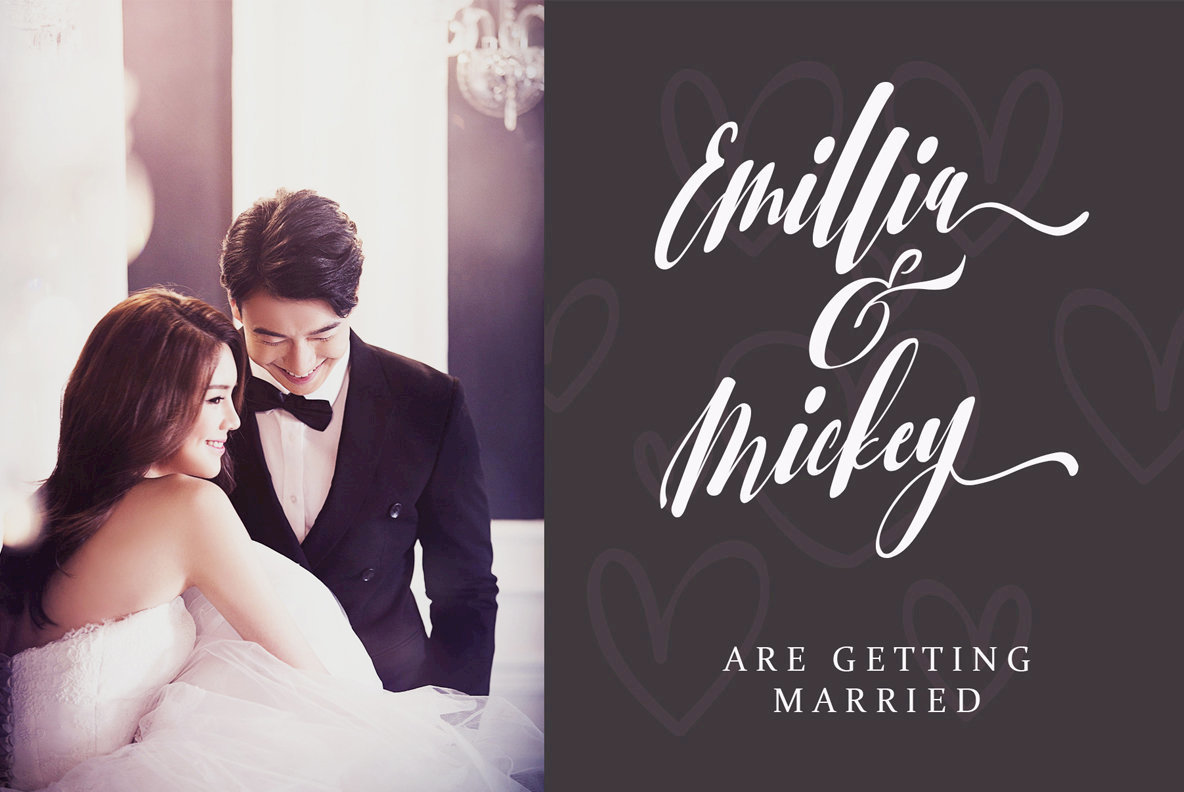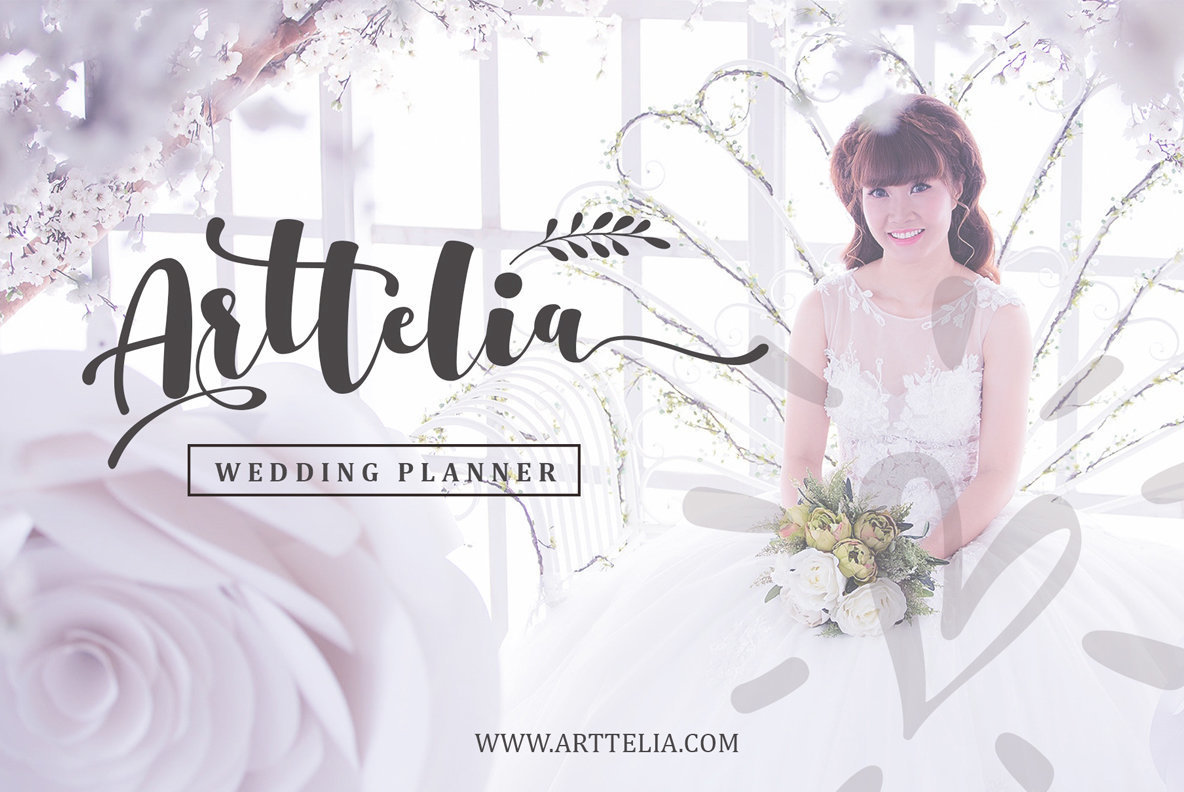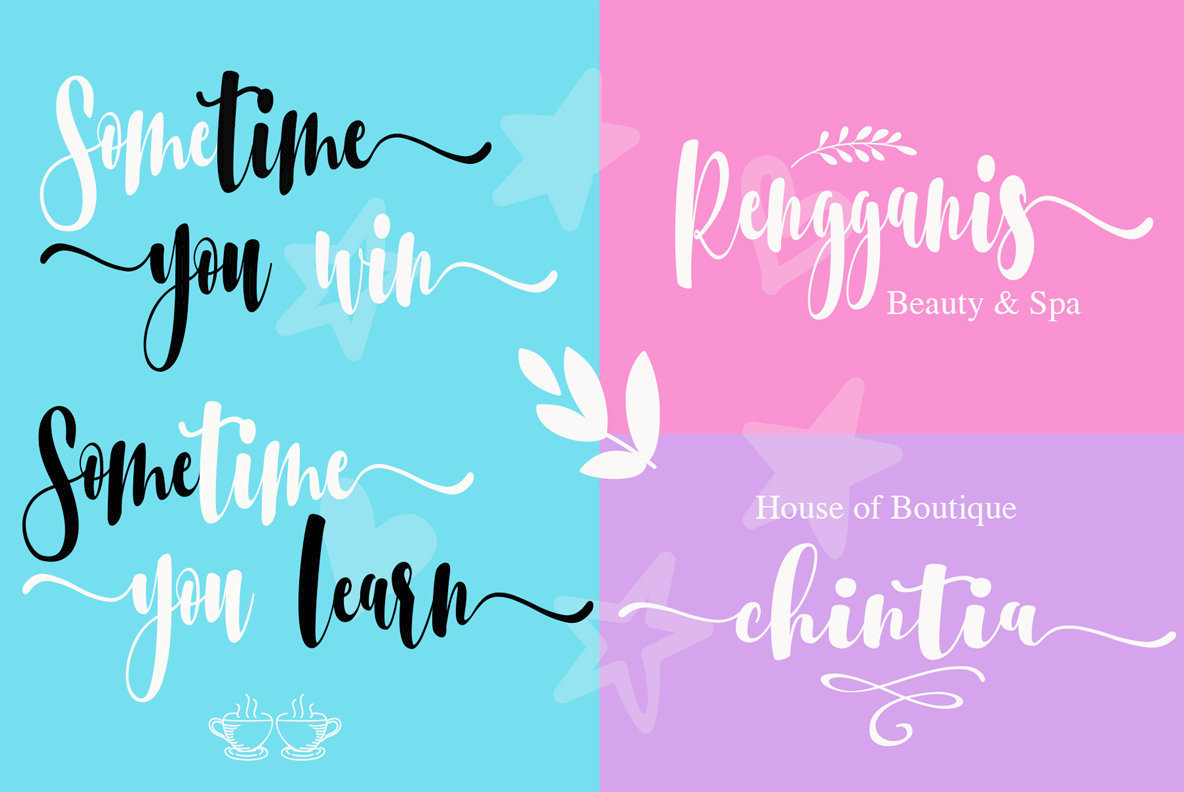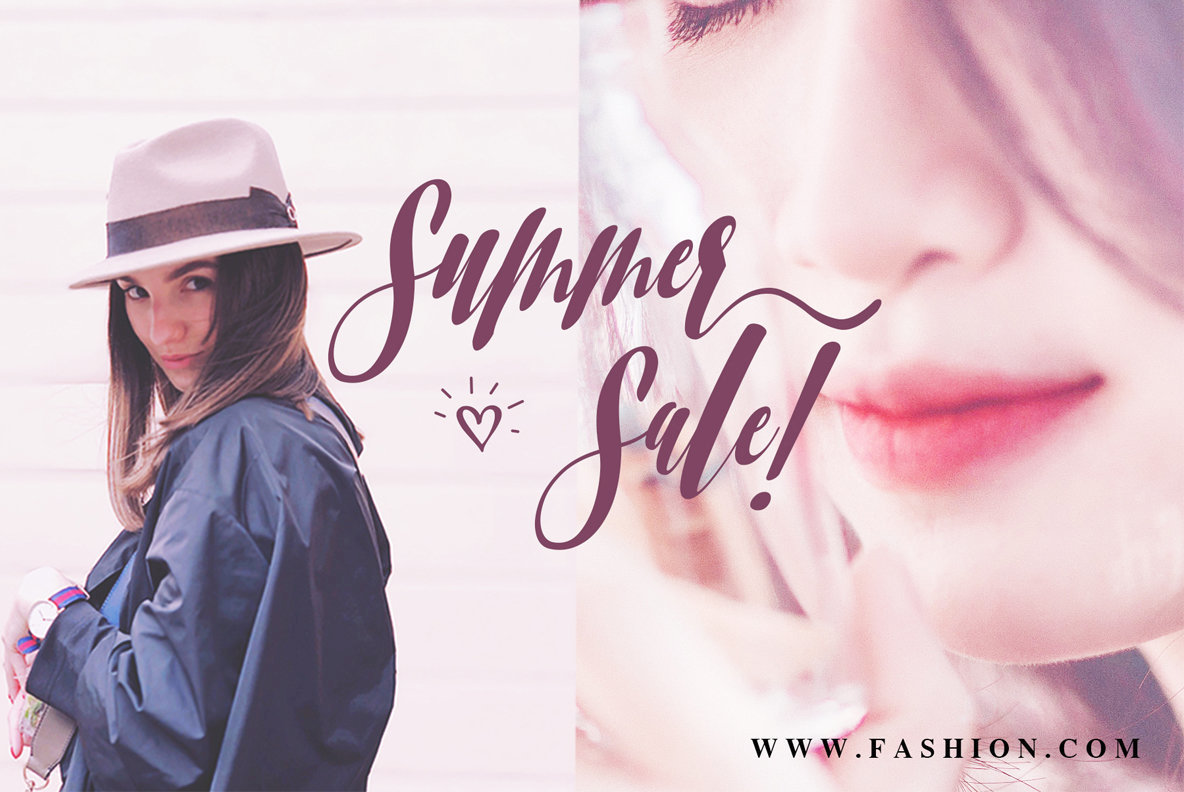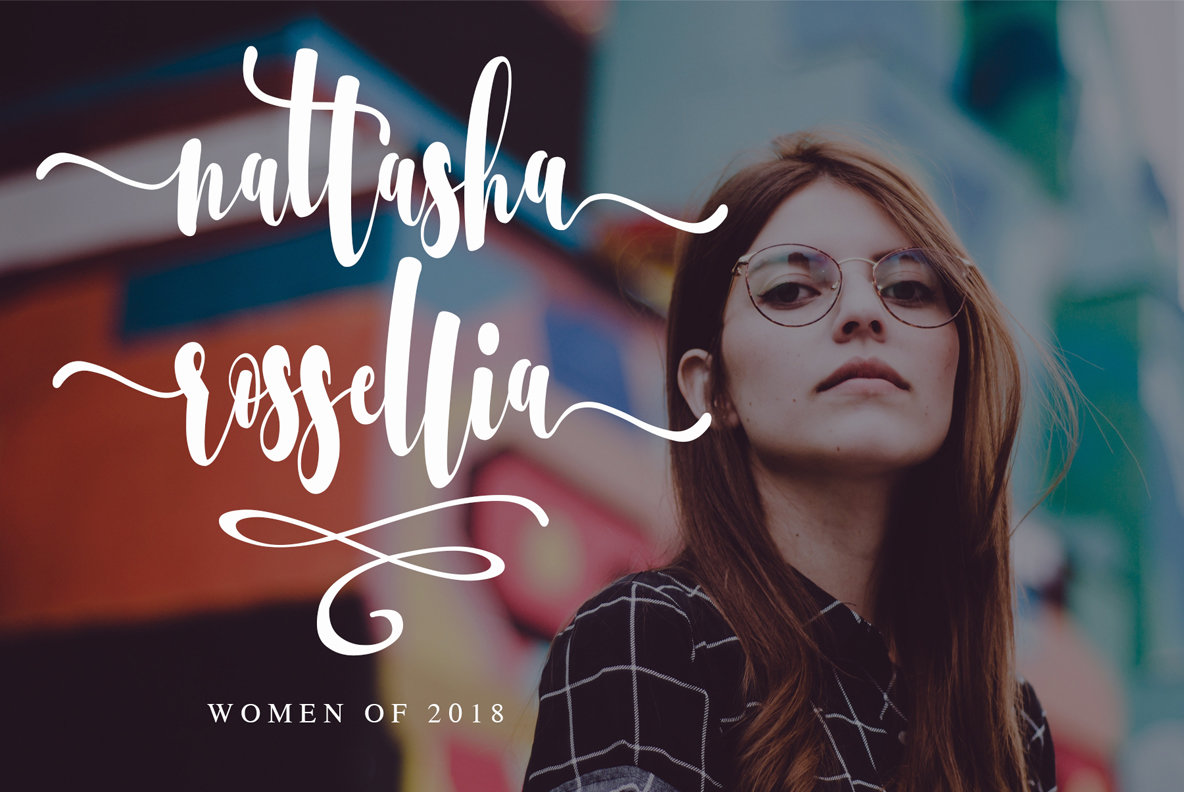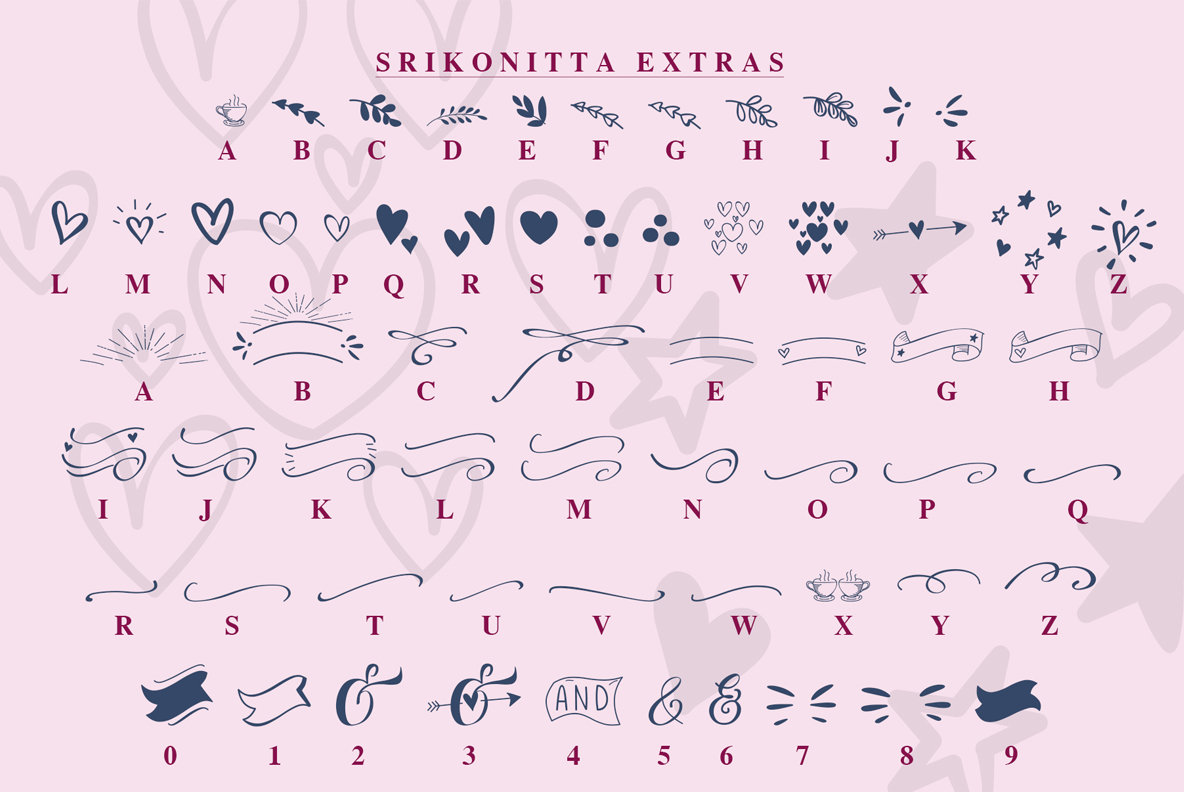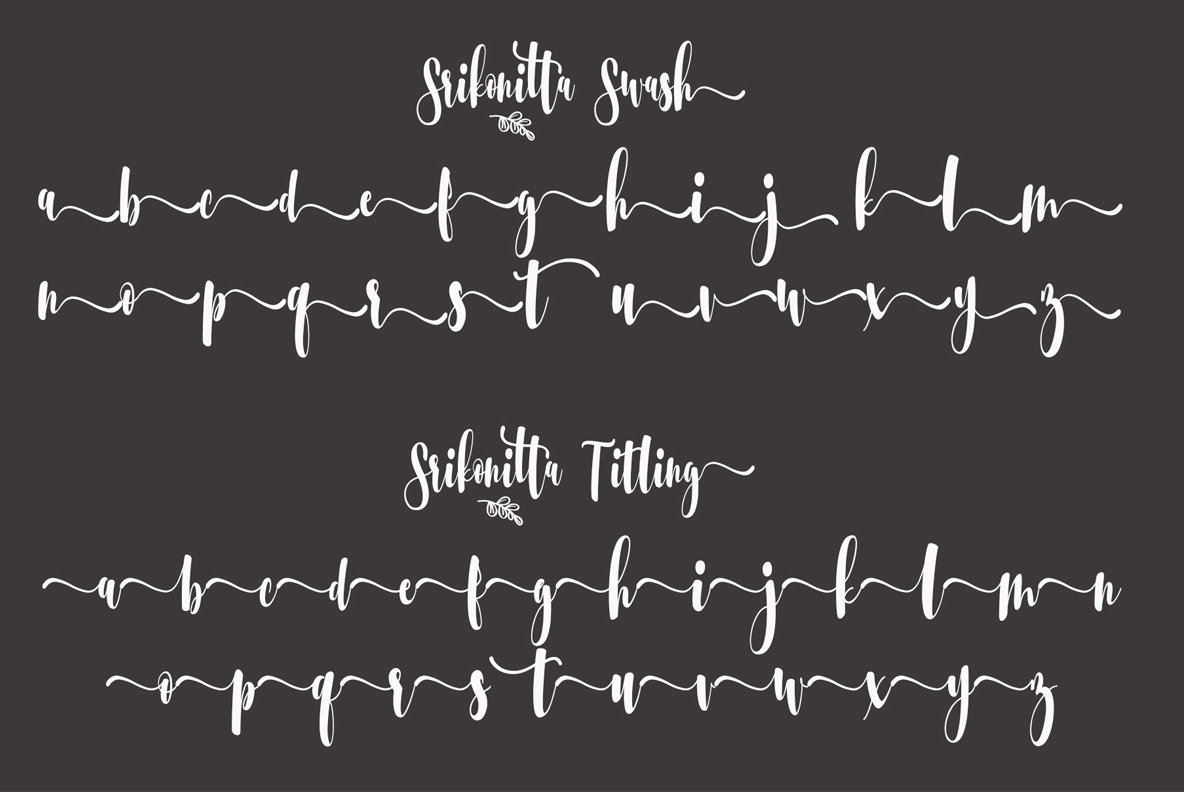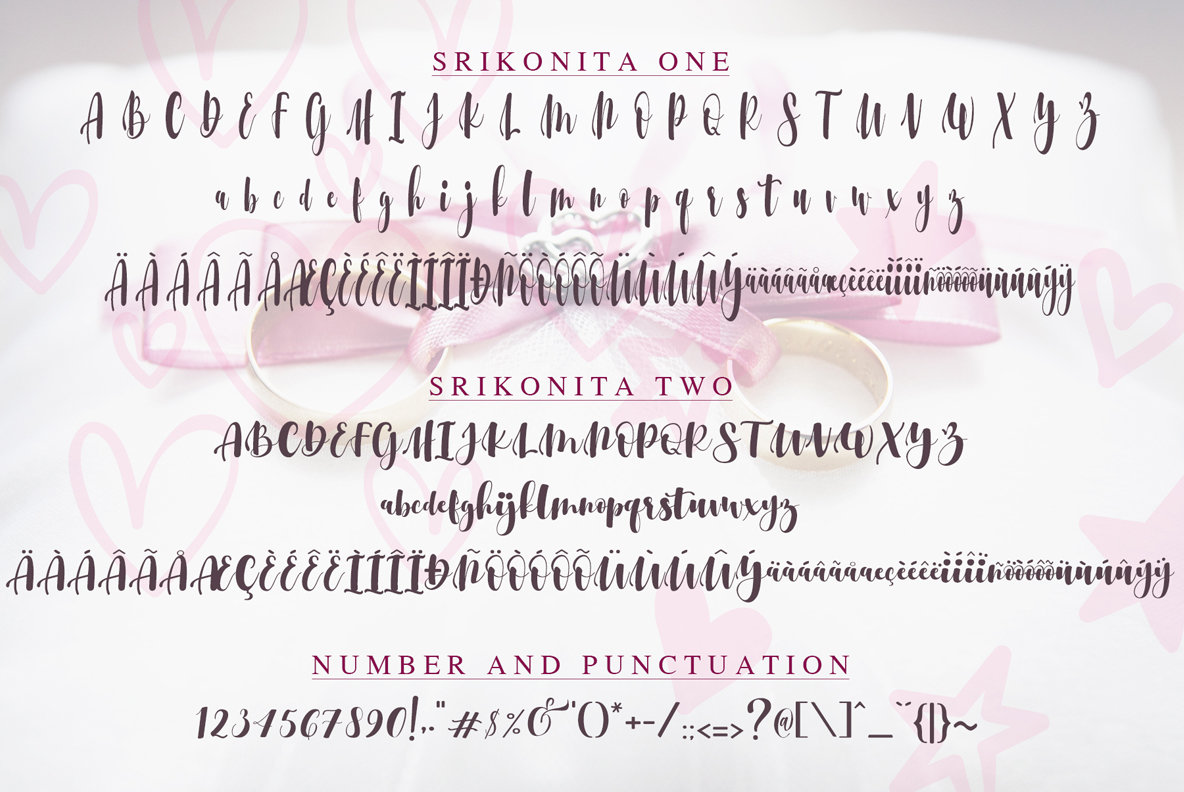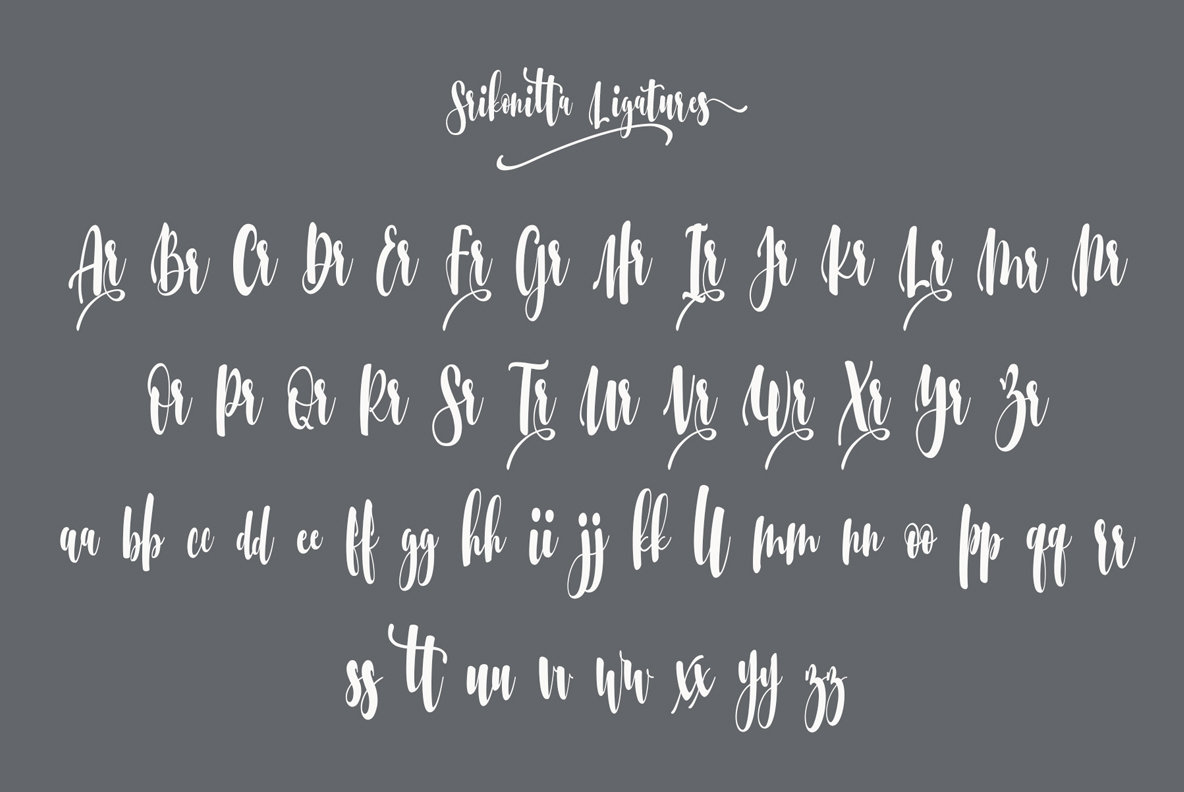
Srikonitta Font
Srikonitta, designed by Alde Saputro, embodies an exquisite script infused with heartfelt creativity. Crafted to mimic natural handwriting, it meets the design needs of both contemporary and classic aesthetics. Its versatility makes it an excellent choice for headlines, apparel design, invitations, branding, weddings, and more.Srikonitta: Alluring Script with a Handwritten Elegance